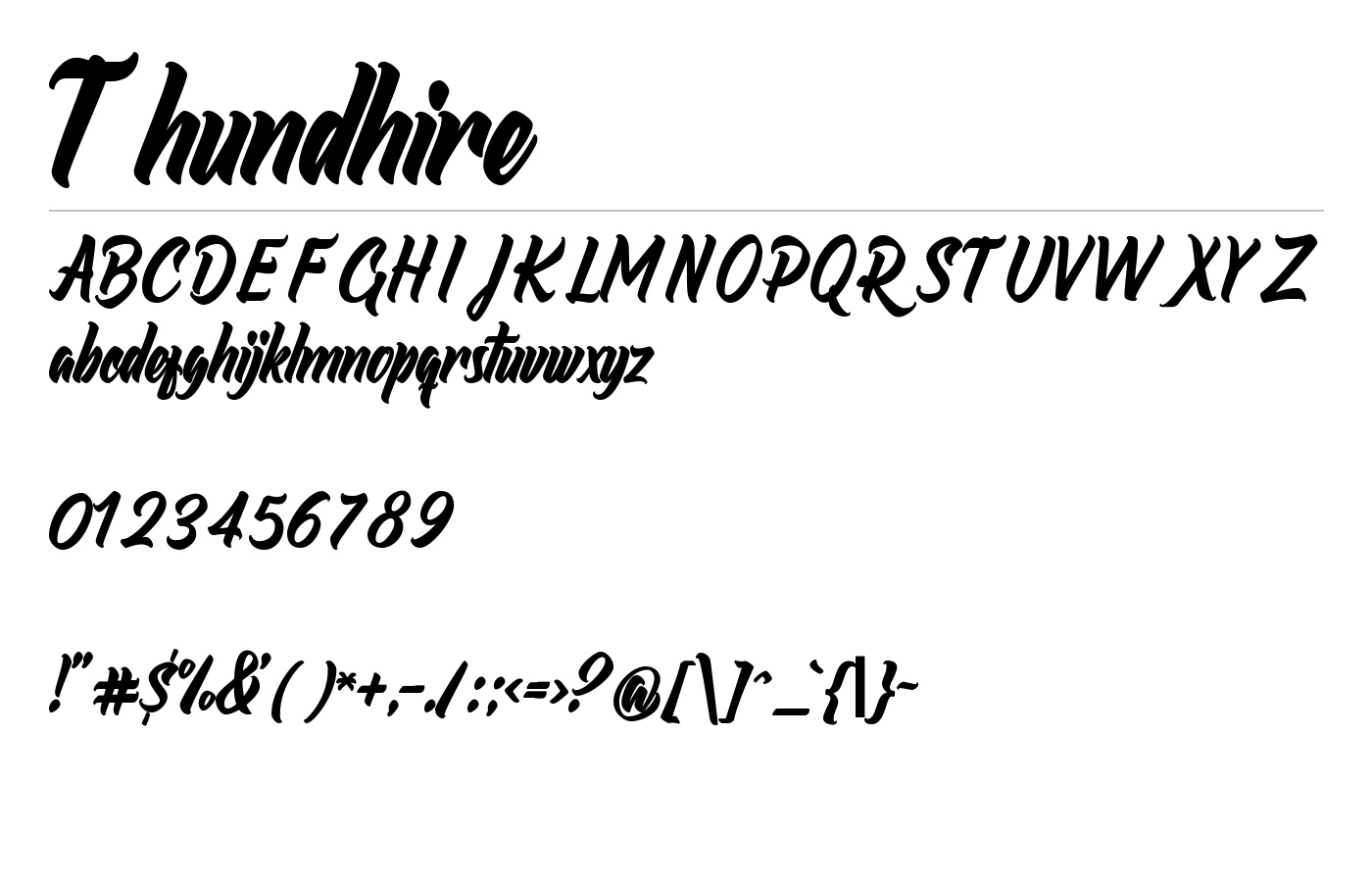
Thundhire is a bold, brush-script font that combines energetic, hand-drawn strokes with elegant curves, creating a lively and expressive feel. Its moderate contrast and smooth, flowing letterforms make it perfect for dynamic branding, posters, and headlines where a playful yet stylish impact is desired. This font works well in creative contexts needing a touch of personality and flair while maintaining readability.
Thundhire Font
About Thundhire Font
| Designer | Lady Hanna |